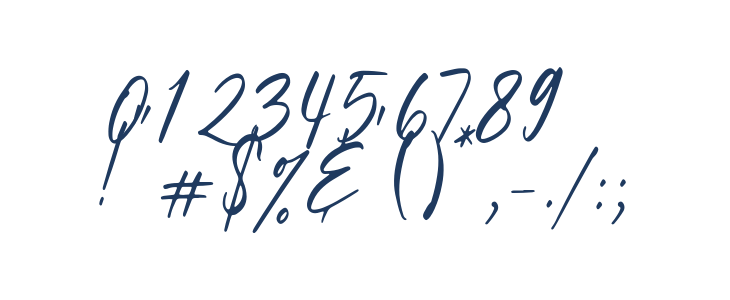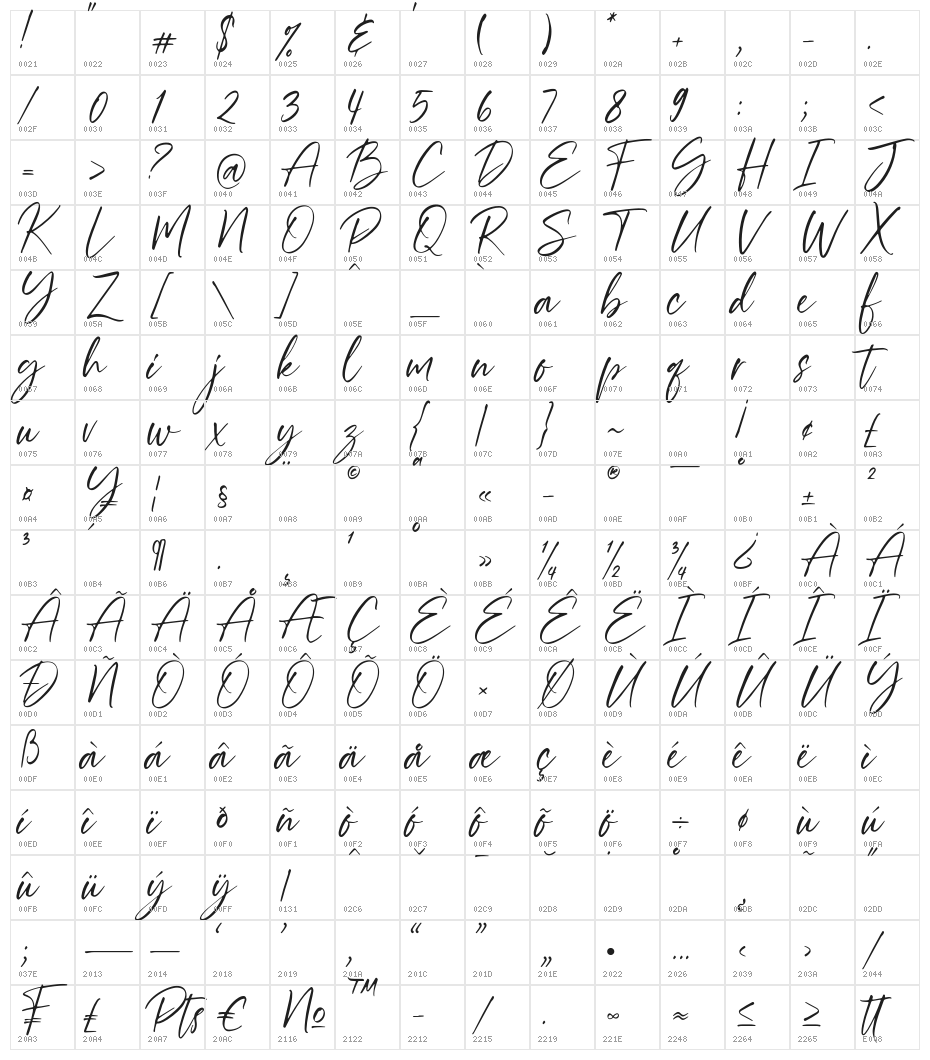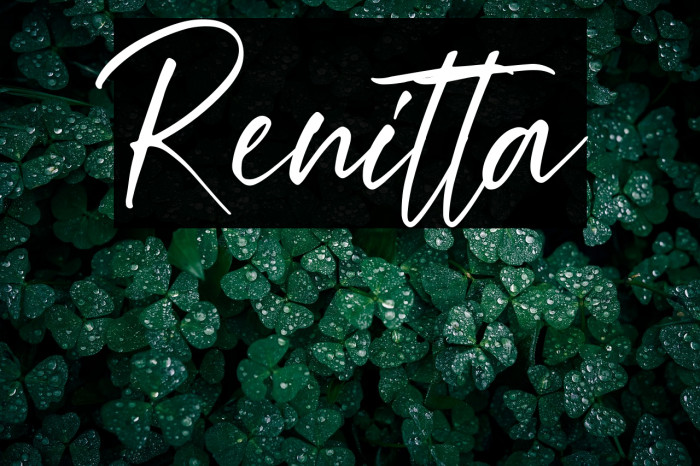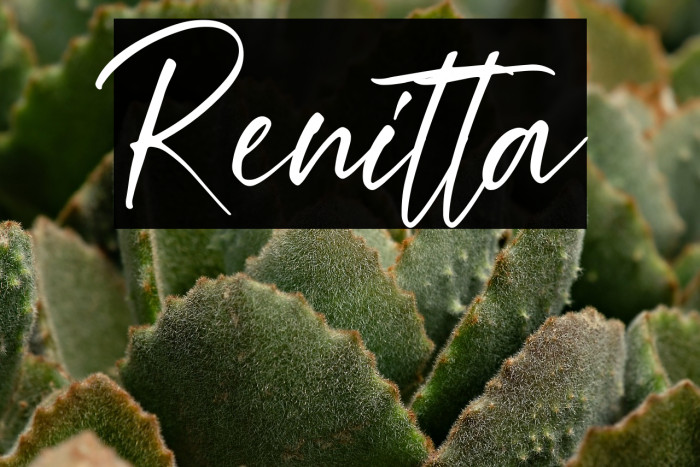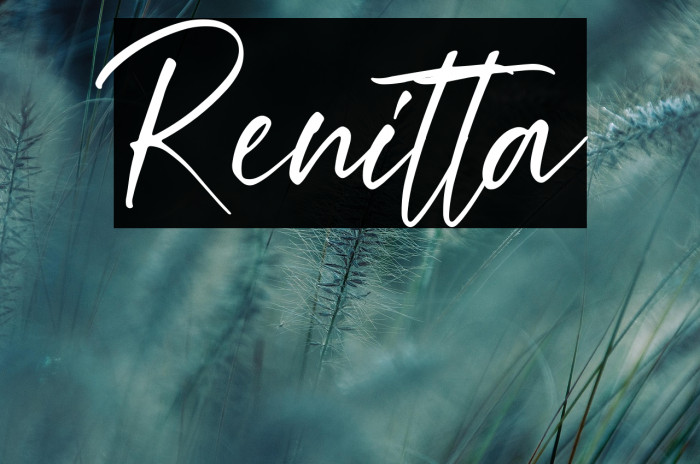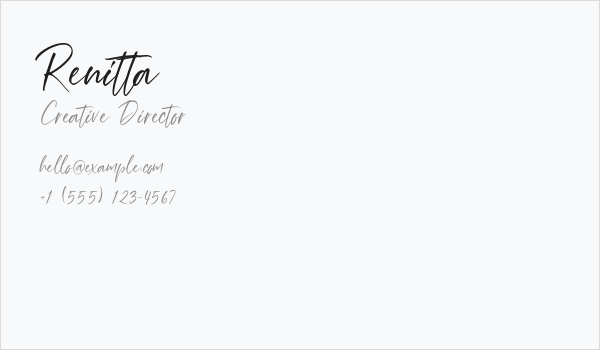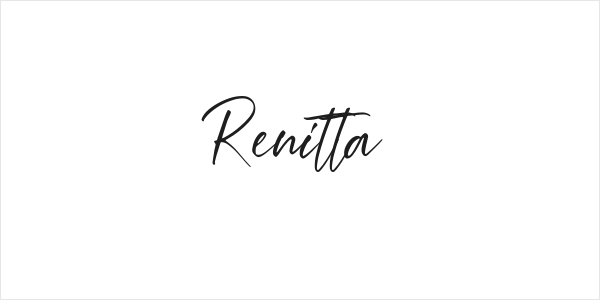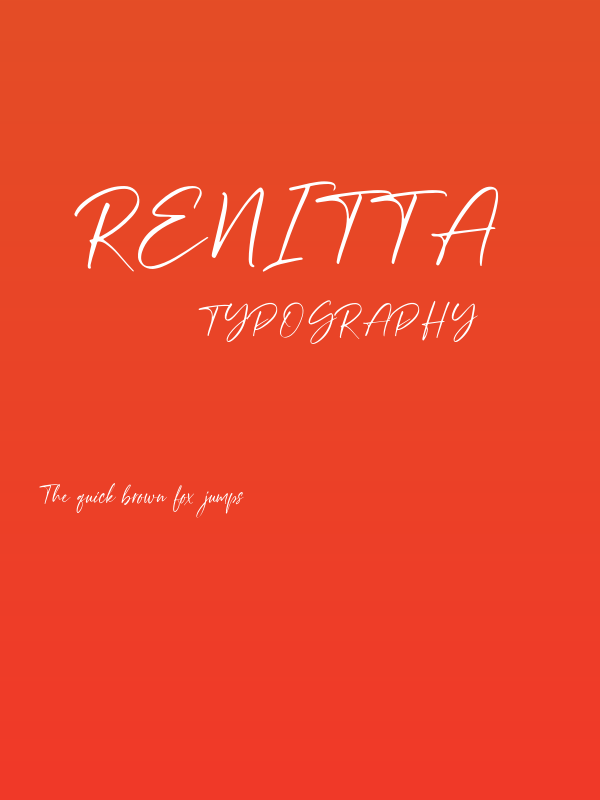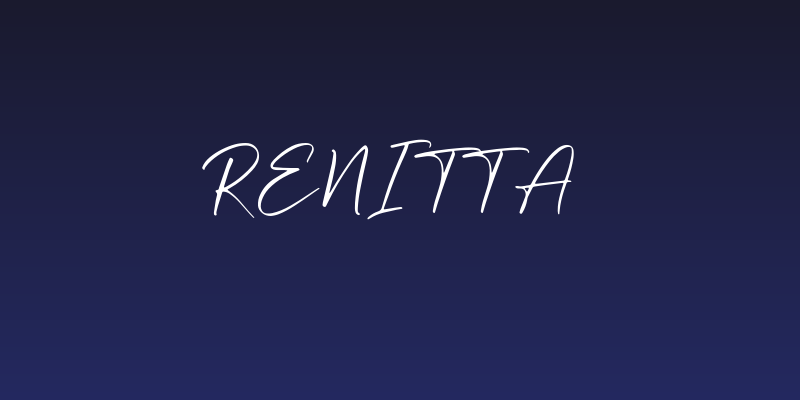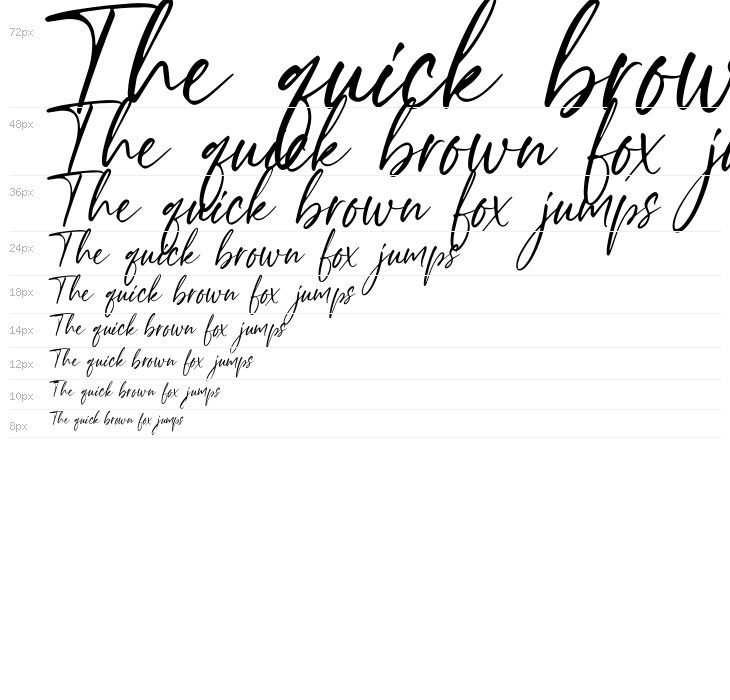
Renitta Font
Renitta Description
This font exudes a dynamic and expressive style, characterized by its fluid, cursive script that mimics natural handwriting. The letters are elegantly connected, creating a seamless flow that enhances its handwritten appeal. The uppercase letters are slightly more structured, while the lowercase letters exhibit a more relaxed and freeform style. The numerals and special characters maintain the same fluidity, ensuring consistency throughout. This font's overall appearance is both artistic and approachable, making it suitable for a variety of creative applications.
Use CaseLogos, Invitations, Artistic projects
Proposed ProjectsIdeal for wedding invitations, personal branding, greeting cards, and artistic projects.